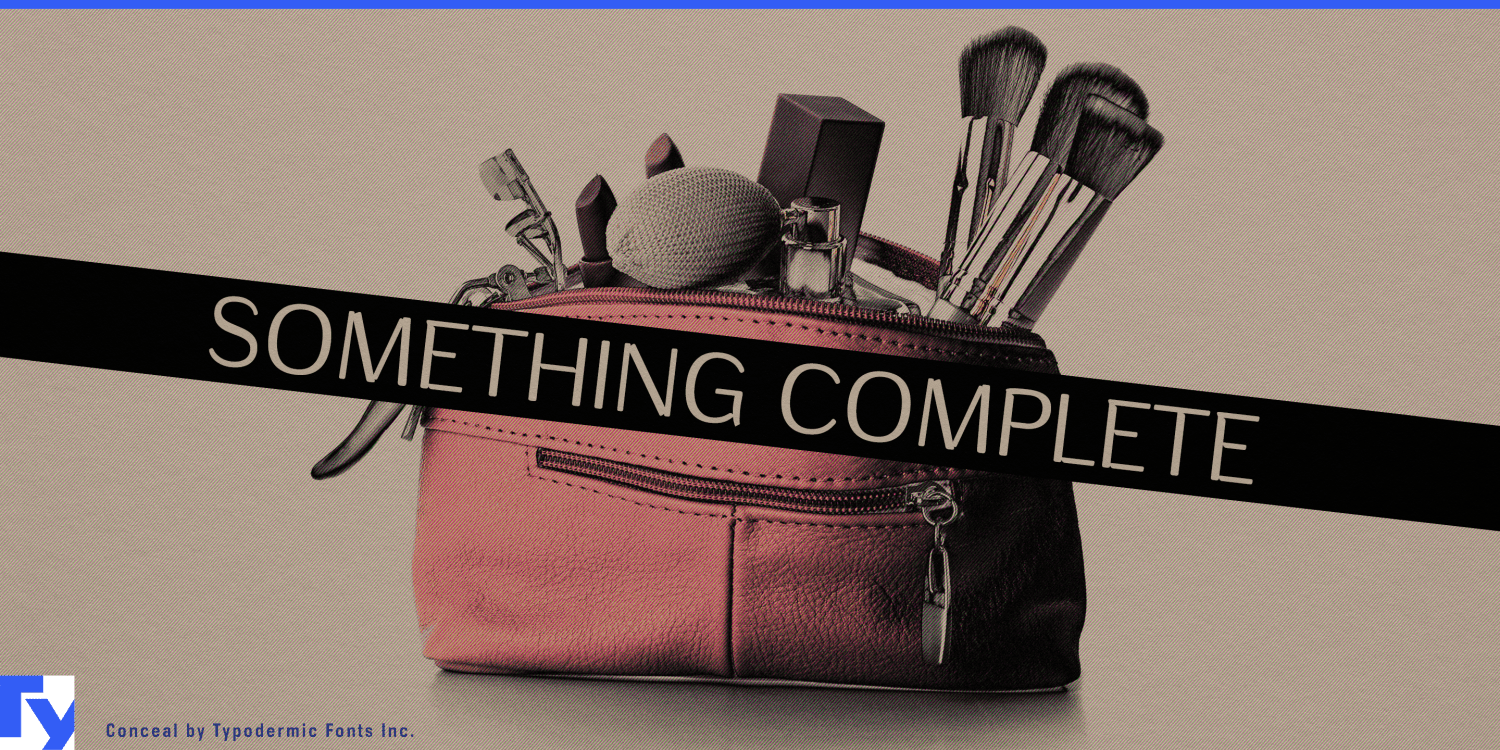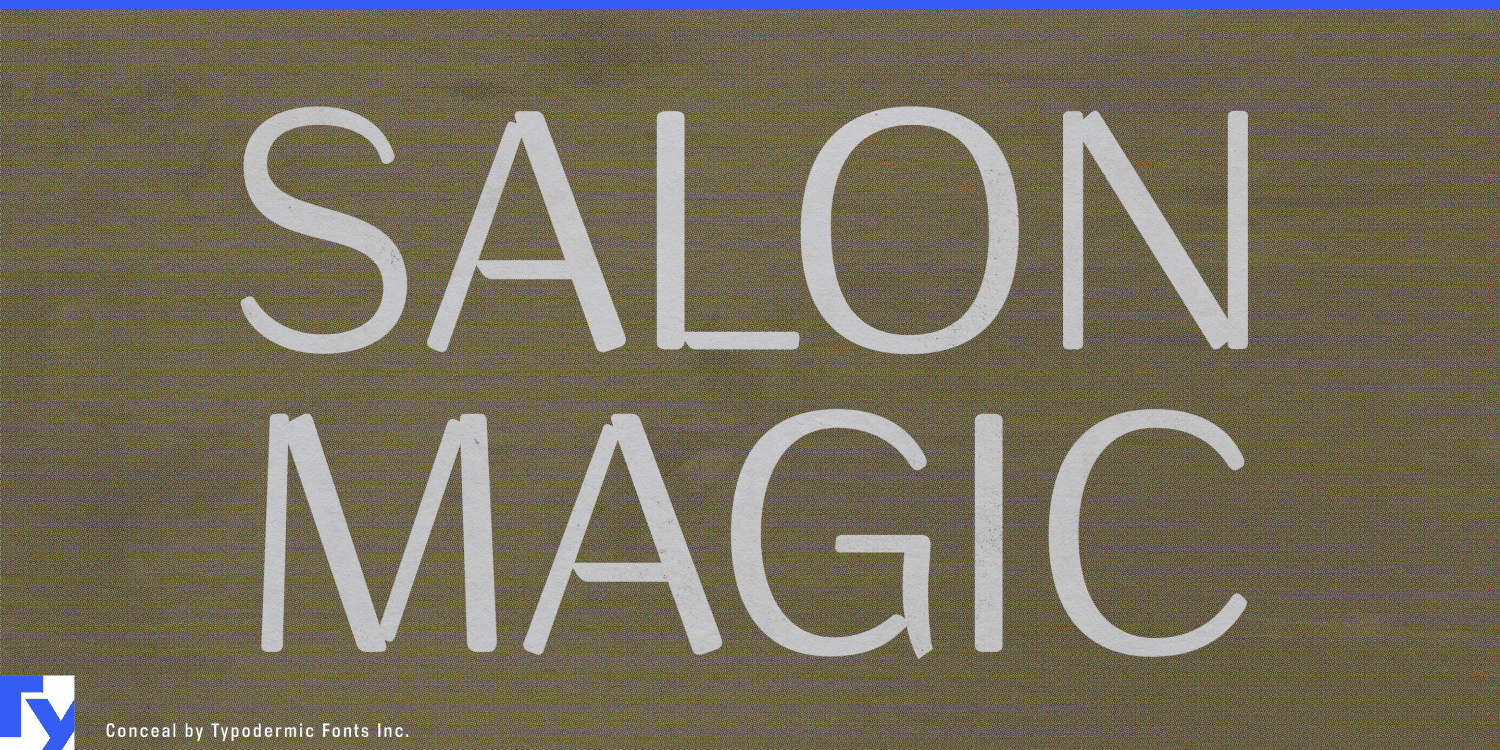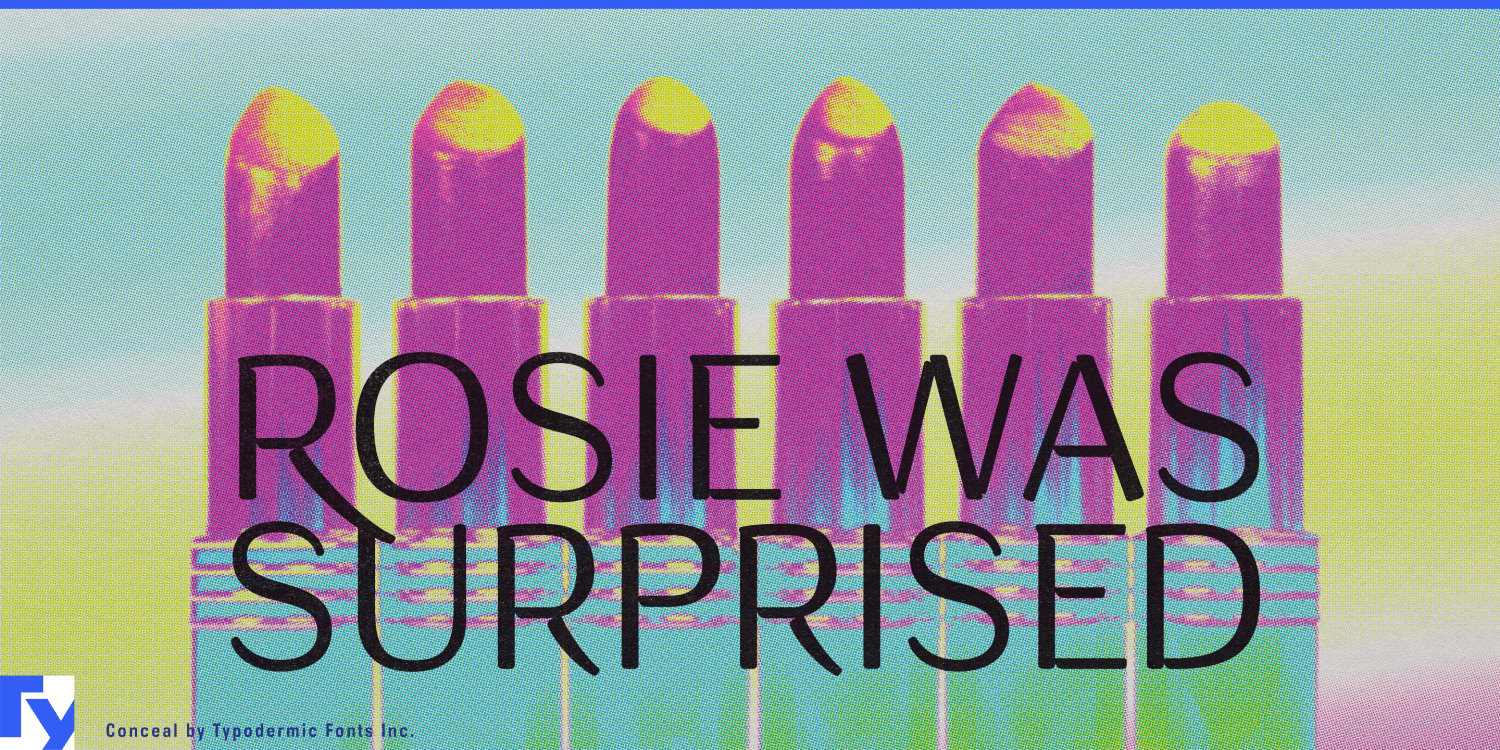
About Conceal
Indulge in the epitome of typographic luxury with Conceal—a display typeface that embodies the allure of haute couture and the sophistication of premium beauty. Inspired by the sleek lines of high-end cosmetics, Conceal’s letterforms flow…